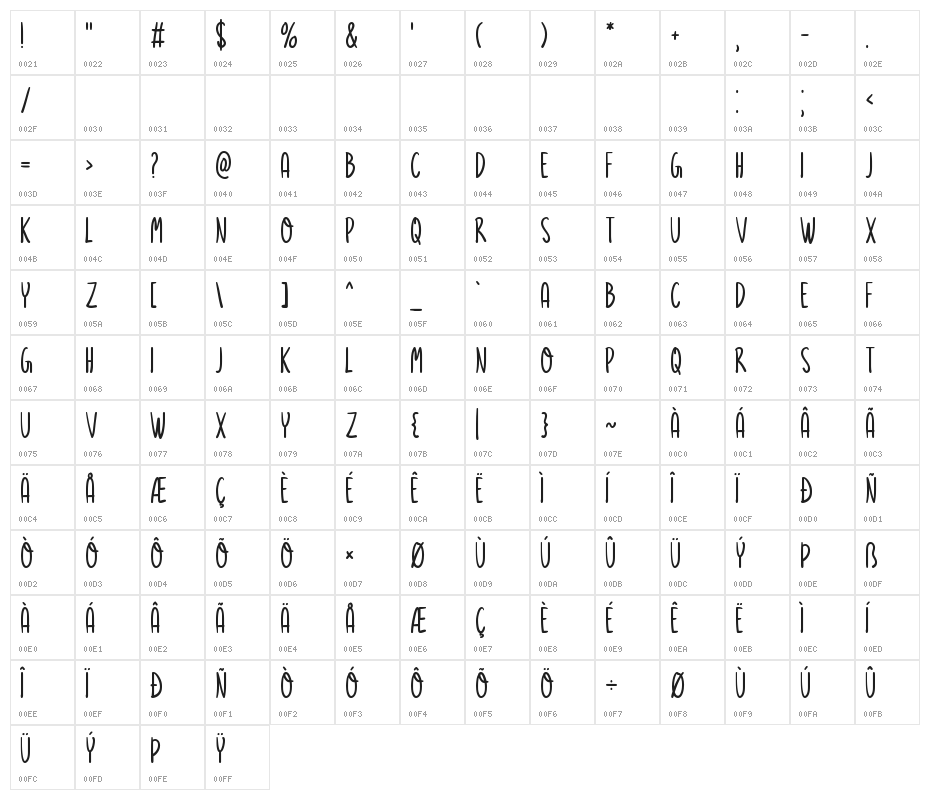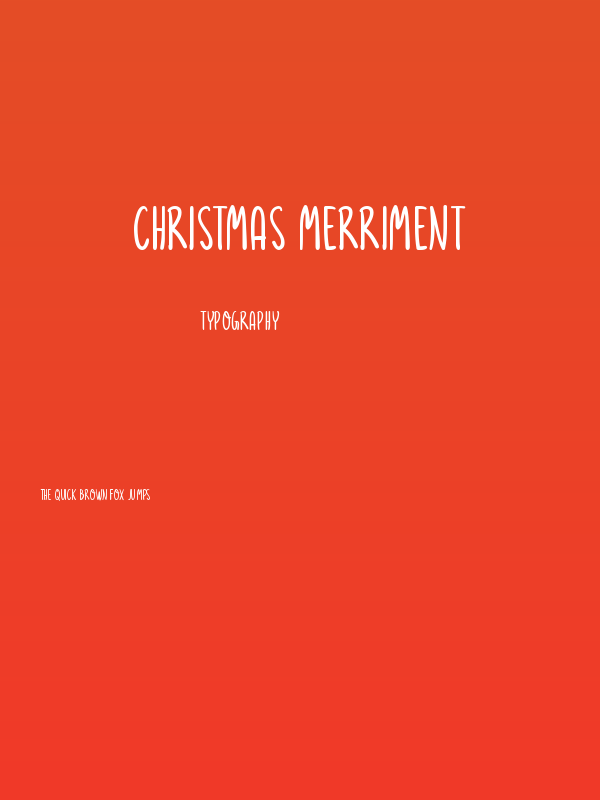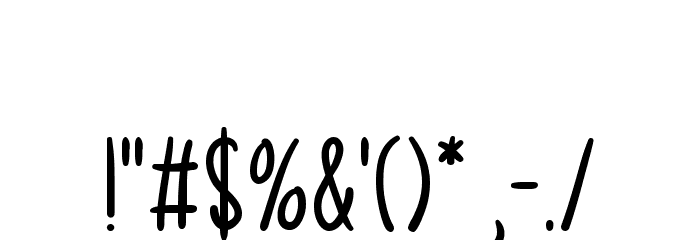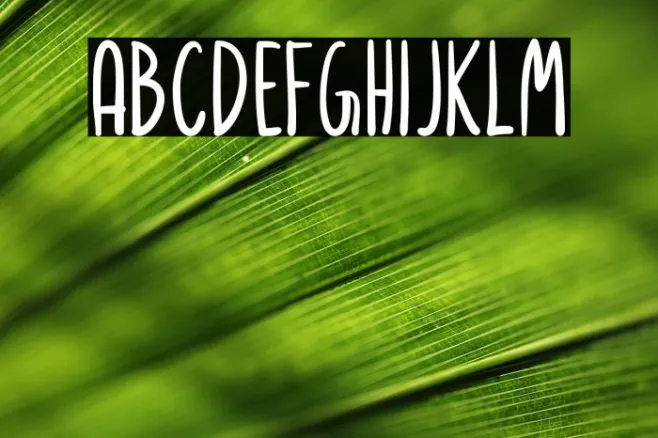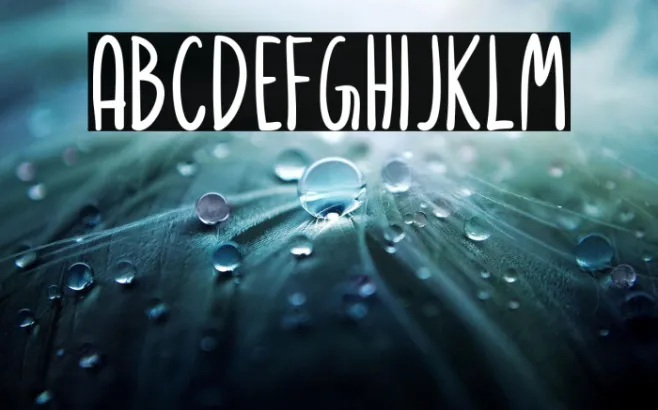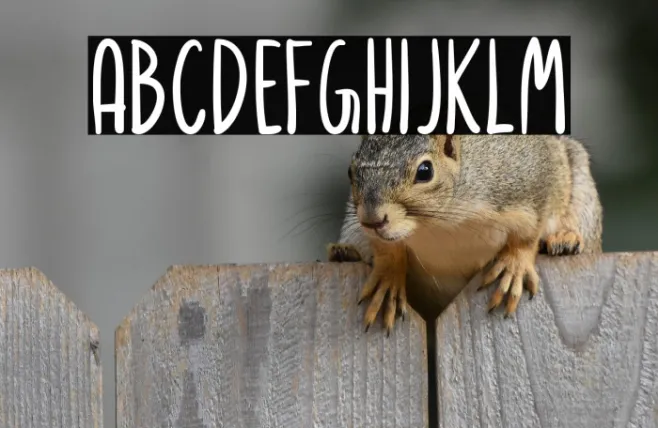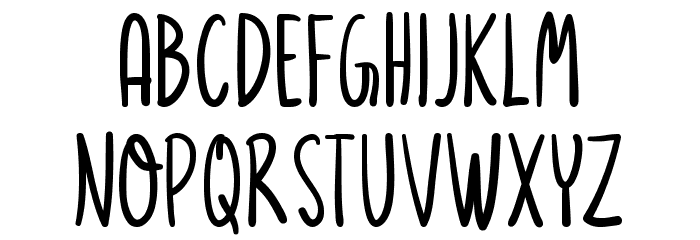
Christmas Merriment Font
Christmas Merriment Description
This font features a playful and whimsical style, characterized by its tall, narrow letters with a slight slant, giving it a handwritten appearance. The strokes are smooth and consistent, with rounded edges that add to its friendly and approachable feel. The uppercase and lowercase letters maintain a uniform height, contributing to a clean and organized look. The special characters are designed with the same playful touch, making them blend seamlessly with the alphabet. This font is ideal for projects that require a touch of fun and creativity, such as holiday cards, children's books, or festive invitations.
| Proposed Projects | Holiday cards, children's books, festive invitations, playful branding. |